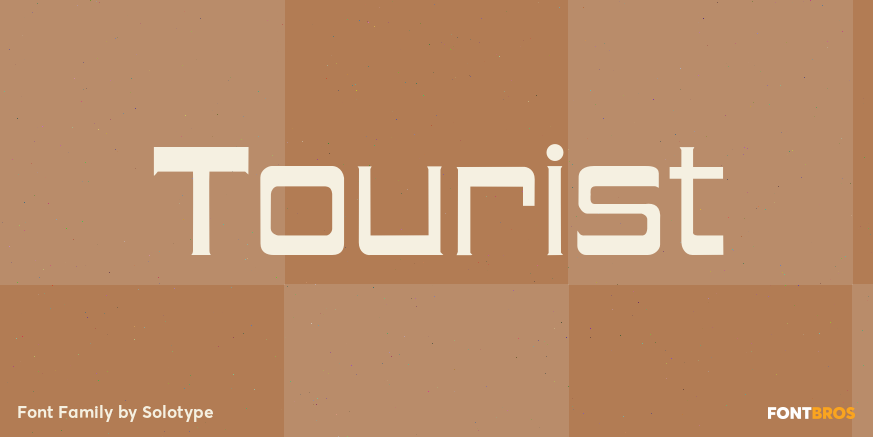
HomeFont BrosHistoricalTourist Historical Tourist FacebookXPinterestWhatsApp 1 of 1 About Tourist MacKeller, Smiths and Jordan had a font called Giraffe Wide which we liked, but like many Victorian display fonts it had no lowercase. We fixed that!  DOWNLOAD ON FONT BROSThis font is sold and delivered by Font Bros. Font Canyon may earn a commission if you buy through this link. People also explored Sarwendah Rista Khalifa Font Caféine Font Intervensi Font Mandarin Font Extreme Font Butterfly Font Hello Heartache Font Valedictorian 332 0 TagsTouristTourist Font Previous articleYan 333Next articleHush Hush LEAVE A REPLY Cancel reply Comment: Please enter your comment! Name:* Please enter your name here Email:* You have entered an incorrect email address! Please enter your email address here Website: Save my name, email, and website in this browser for the next time I comment. Personal Use Free Mandarins Personal Use Free Read more about this font Cloudy Night Personal Use Free Read more about this font Retro Poster Personal Use Free Read more about this font Catandra Script Personal Use Free Read more about this font BLOG How to Install and Use Fonts on Windows, macOS, and Web Projects How to Install and Use Fonts on Windows, macOS, and Web Projects Fonts are a crucial part of design and branding. Whether you’re designing a... Exploring Font Trends Where to Buy American Fonts Online in 2024 To increase your work productivity, choose the most readable fonts.